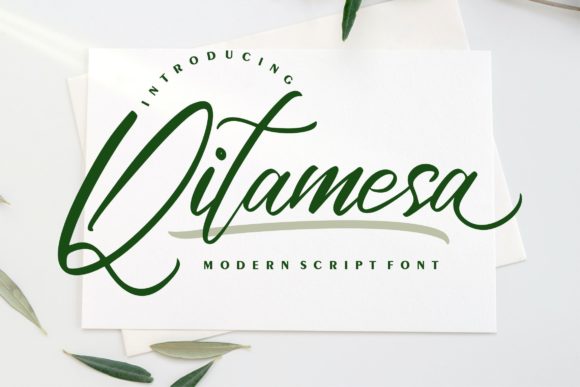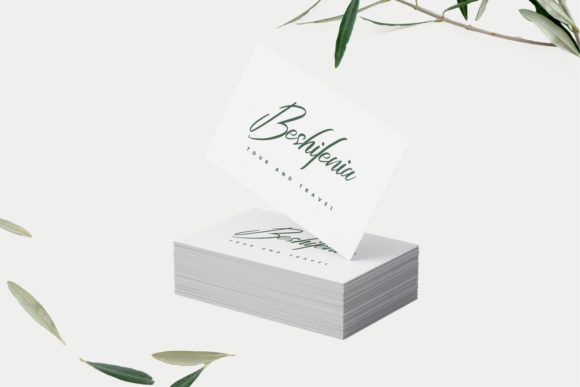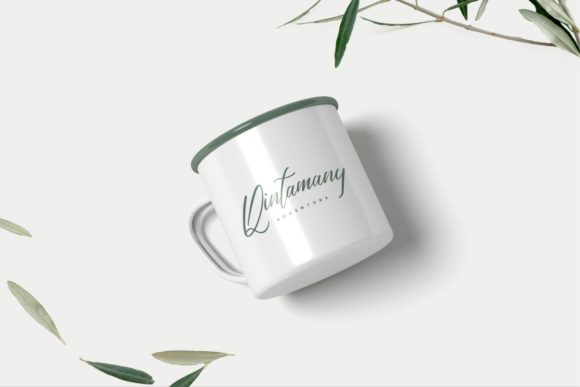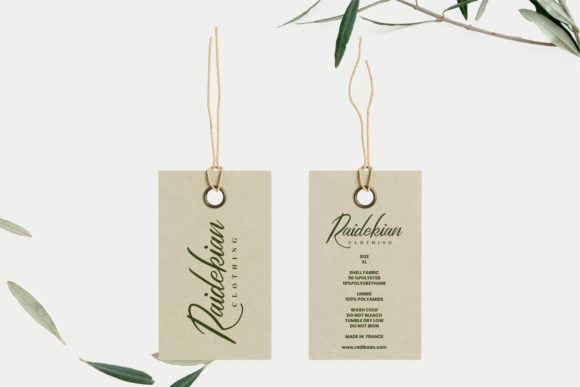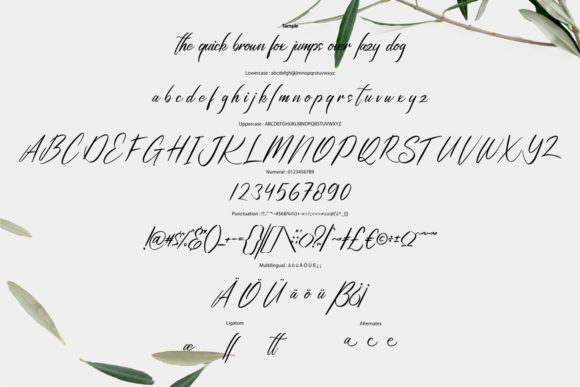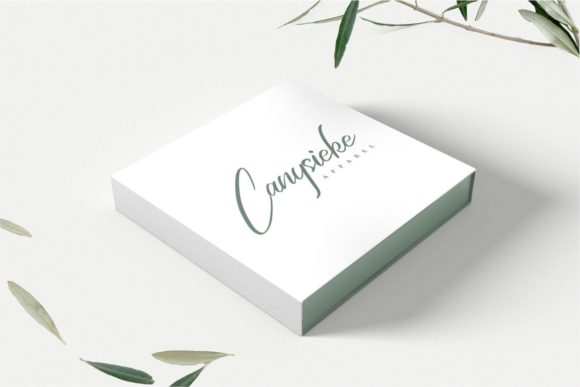
Qitamesa Script Font
About Qitamesa Script Font
**Qitamesa | Modern Script Font** with a calligraphy style. It looks so beautiful on invitations, greeting cards, branding materials, business cards, quotes, posters, and more!